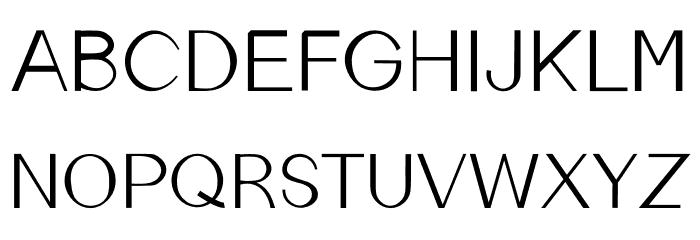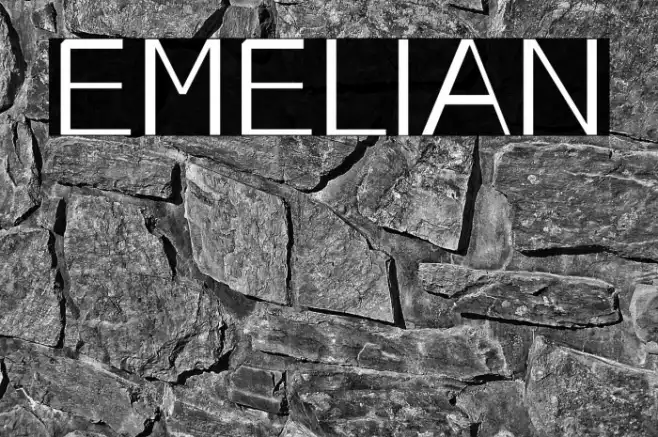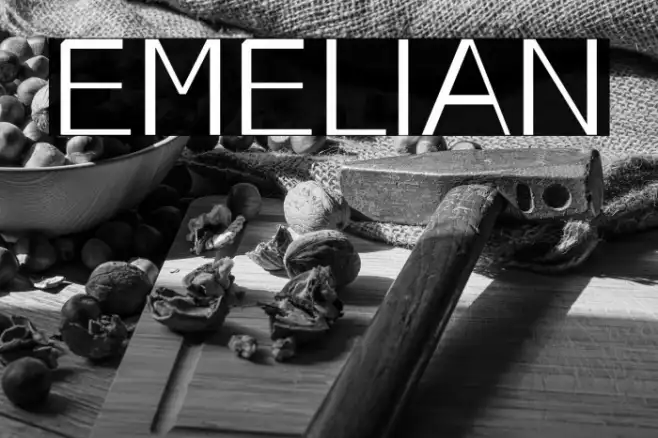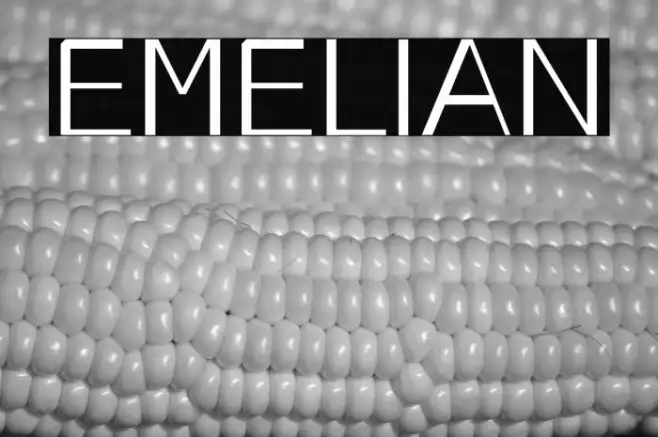
EMELIAN Font
This font features a clean and modern sans-serif style with a geometric structure. The uppercase letters are uniform in height and width, providing a balanced and harmonious appearance. The strokes are consistent in thickness, contributing to a sleek and professional look. The absence of serifs gives it a contemporary feel, making it suitable for various design applications. The characters are well-spaced, ensuring readability and clarity. This font is versatile and can be used in both digital and print media, offering a timeless aesthetic that is both functional and stylish.
A modern, geometric sans-serif font with consistent stroke thickness and balanced spacing.
- Font: EMELIAN
- Proposed Projects: Ideal for branding, corporate design, web interfaces, and editorial layouts.